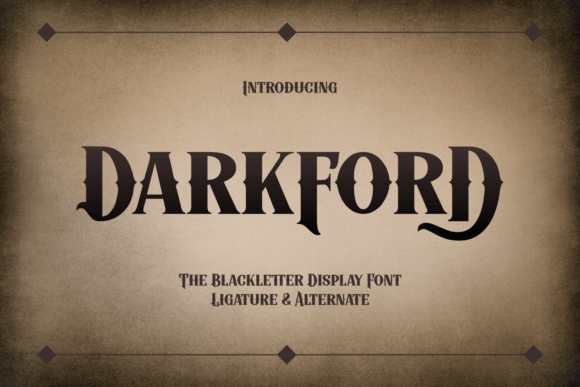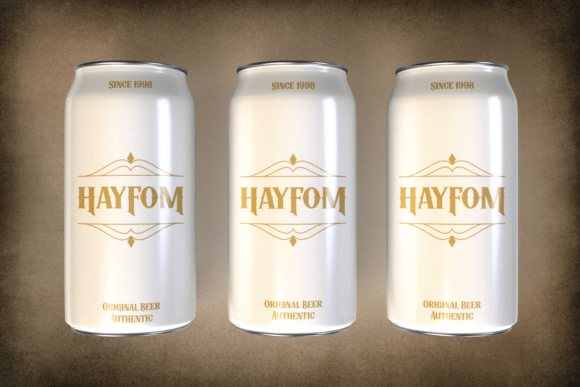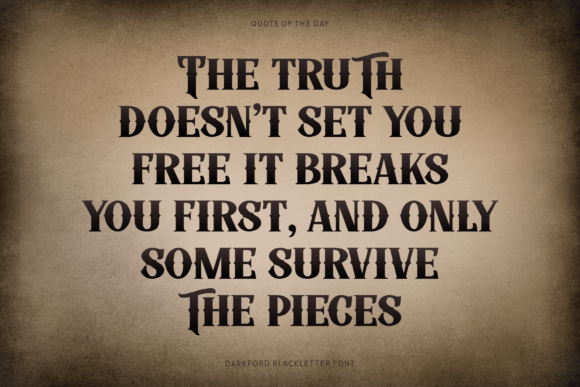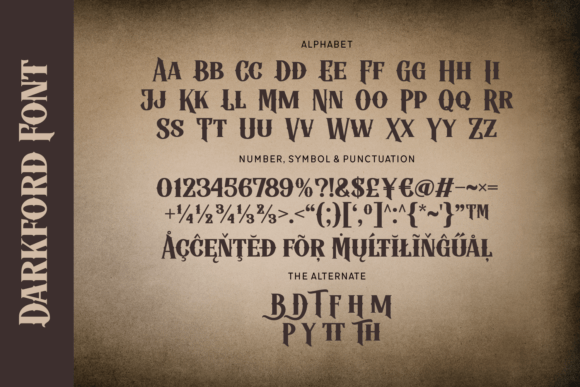
Darkford Font
Darkford is a bold blackletter display font that blends traditional Gothic flair with sleek modern details. Featuring dramatic ligatures and unique alternates, Darkford is perfect for fantasy branding, medieval game titles, book covers, or any design that calls for an old-world charm with a contemporary edge. Its refined strokes and stylized terminals bring a mysterious, heroic vibe to every word.